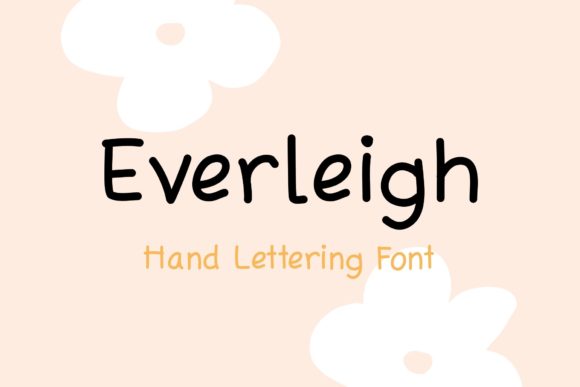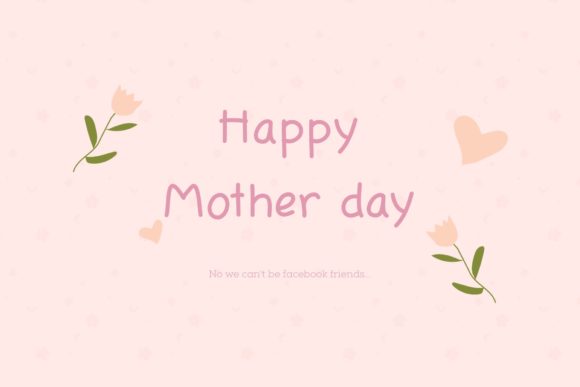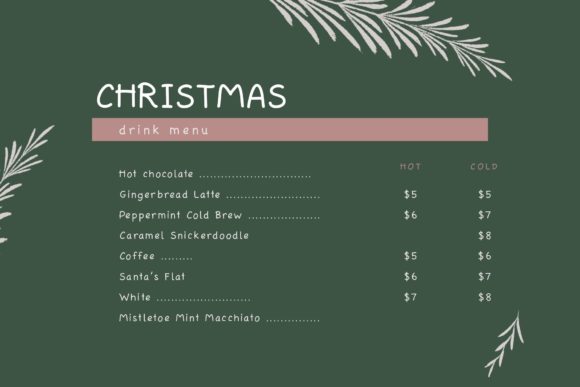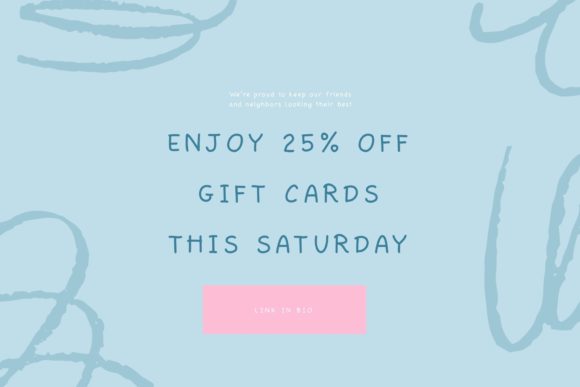
Everleigh Font
About Everleigh Font
Everleigh is a clean and modern handwritten font with beautifully rounded characters and a stylish flair.
Use the font for Cricut projects, design, logos, branding, decor, mugs, pantry labels, wedding invitations, stickers, business cards, greeting cards, posters, social media, planner prints, and more!